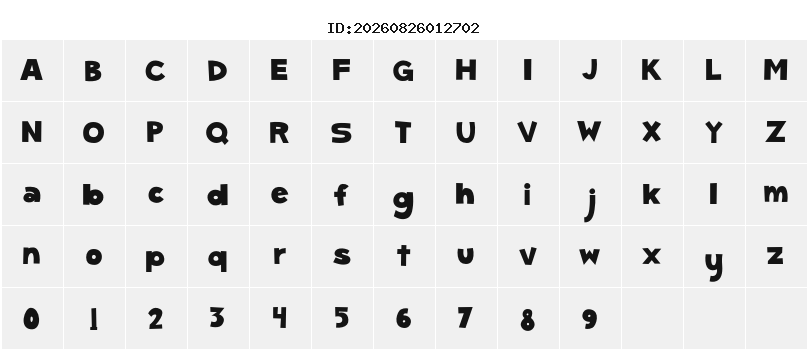
SC Gum Kids Preview
• Font Name: SC Gum Kids
• Font ID: V1 SickCapital.com Gum Kids
• Full Font Name: SCGumKids
• Version: V1 SickCapital.com Gum Kids
• PostScript Name: SCGumKids
• Character Count: 200
• Designer: Andrew2 Hart
• Manufacturer: dafont.com/andrew2-hart.d1547
• Description: SickCapital.com
About SC Gum Kids.otf
SC Gum Kids.otf is a modern, elegant sans-serif font designed for ultimate readability and visual harmony. Perfect for branding, headlines, web design, and print materials.